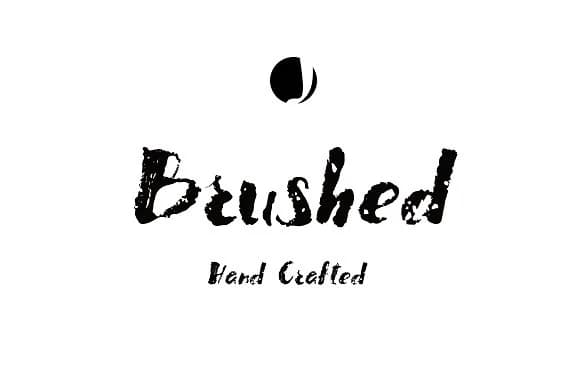
Brushed Font by Jadugar Design Studio is a fluid script typeface that authentically captures the spontaneity and energy of natural brushwork. The design celebrates the organic quality of hand-brushed letterforms, bringing genuine character and expressive personality to any creative project that depends on human warmth and individual creative voice.
This typeface excels for curated design work where distinctive style and handmade appeal matter most. Designers select Brushed Font for wedding invitation suites where emotional resonance enhances formality, artisanal product labels for boutique goods seeking craft credibility and visual distinction, hand-lettered brand identities that establish authentic personality for small creative businesses, and custom DIY vinyl lettering for signage, stickers, and personalized gifts. The flowing letterforms also shine in greeting card designs, custom stationery systems, event programs, and social media graphics where a personal touch strengthens audience connection and sets branded content apart from mass-produced alternatives.
Brushed Font's expressive brush-textured character performs reliably across both digital and physical applications, whether you're building cohesive brand systems, designing printed materials, or preparing artwork for cutting machine production. The stroke work preserves readable, intentional letterforms while creating distinctive visual presence and professional polish on every project. Discover Brushed Font on Creative Fabrica and bring this hand-crafted script into your creative toolkit.
Brushed Font is a script font that shines as a display or heading face. Pair it with a clean sans-serif or serif font for body text β the contrast creates a clear hierarchy while the two styles stay balanced and easy to read.